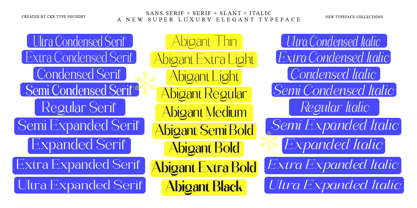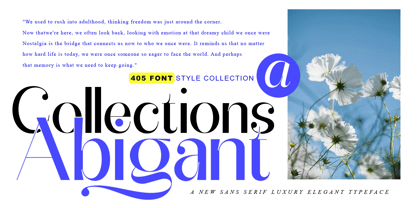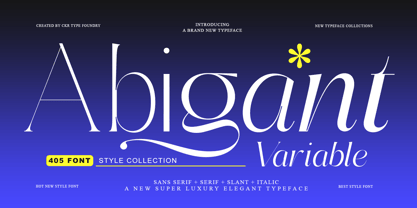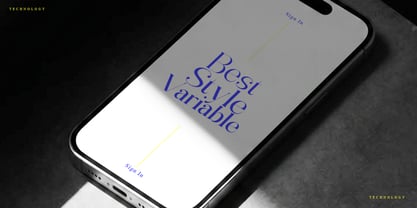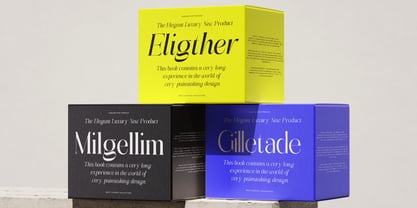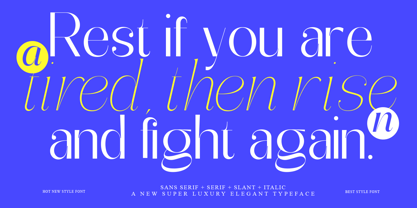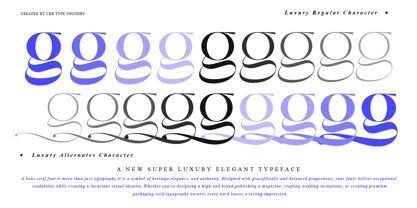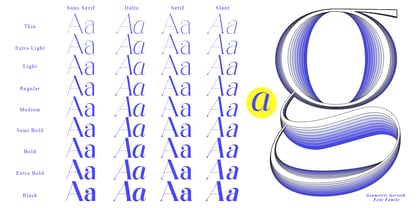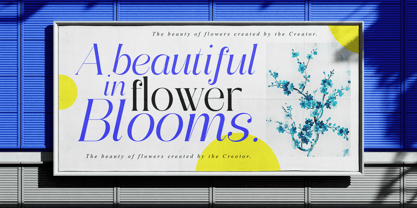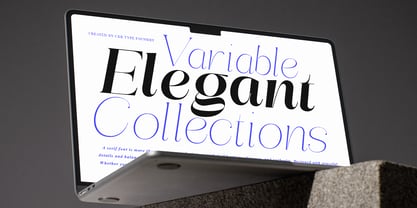
Abigant
by CKR Type Foundry
The Abigant Font Family was designed by Cut Kurniyawati Rahim and published by CKR Type Foundry. Abigant contains 91 styles. More about this family
Abigant is a comprehensive typeface superfamily—encompassing italic, sans-serif, and serif styles—created for designers who value both elegance and versatility. Blending classic serif craftsmanship with an elegant contemporary touch, this typeface delivers a sophisticated visual experience suitable for a wide range of applications, from luxury product branding to editorial publishing.
Designed with meticulous attention to detail, every character features graceful curves, sharp strokes with high contrast, and beautifully balanced proportions, creating a distinctive premium aesthetic. Whether building a fashion brand, designing a magazine, or developing a luxury packaging system, Abigant adapts effortlessly to diverse creative directions.
Abigant’s key strength lies in its massive collection of 405 styles, offering exceptional flexibility for typography enthusiasts and professional designers alike. With a wide array of weights, widths, italics, slants, and stylistic variations, you can always find the perfect style for any project—from elegant headlines to refined, highly readable body text.
This superfamily is designed to provide a complete typographic system, enabling the creation of a consistent visual identity across various media, including print, web, packaging, advertising, and digital interfaces.